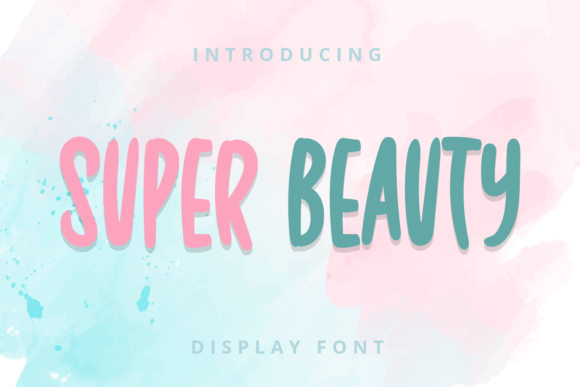
Introducing Super Beauty Font, a display font that will captivate you with its charm and versatility. Designed by the talented Planetz studio, this delightful font exudes a casual vibe that makes it perfect for adding a touch of whimsy to your Christmas cards, invitations, social media posts, and more.
Escape the mundane fonts and embrace the enchanting world of Super Beauty. Its unique characters dance across the page, creating a playful and inviting atmosphere that will leave a lasting impression. Whether you're crafting a heartfelt holiday message or designing a whimsical poster, Super Beauty will effortlessly elevate your creations with its enchanting allure.
Immerse yourself in the magic of Super Beauty and let your imagination soar. Its adaptability knows no bounds, making it the perfect companion for a wide range of projects. From cheerful Christmas cards to playful social media posts, Super Beauty will transform your words into works of art that will capture hearts and spread joy.
Don't settle for ordinary when you can have extraordinary. Super Beauty is the key to unlocking captivating designs that will make you stand out from the crowd. Embrace its charm, let your creativity flow, and experience the transformative power of this delightful display font.